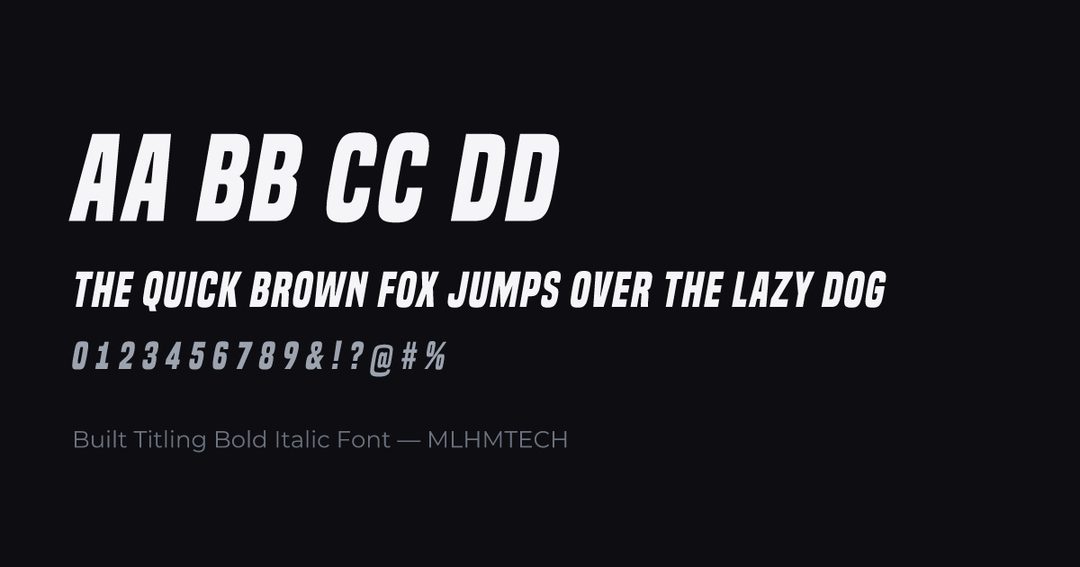
Built Titling Bold Italic Font
Built Titling Bold Italic is a clean, modern display font ideal for titles, logos, and posters. Its bold italic style adds impact to any project.
Built Titling Bold Italic is a high-quality display font that combines a strong, bold weight with a dynamic italic slant. The clean lines and modern proportions make it perfect for eye-catching titles, logos, and promotional materials. Whether you're working on a video intro, a poster, or a brand identity, this font delivers a professional and contemporary look.
Ideal for video editors, graphic designers, and content creators, this font can be used to create striking title sequences, lower thirds, and call-to-action overlays. Its bold italic style stands out and commands attention, making it a valuable addition to your creative toolkit.